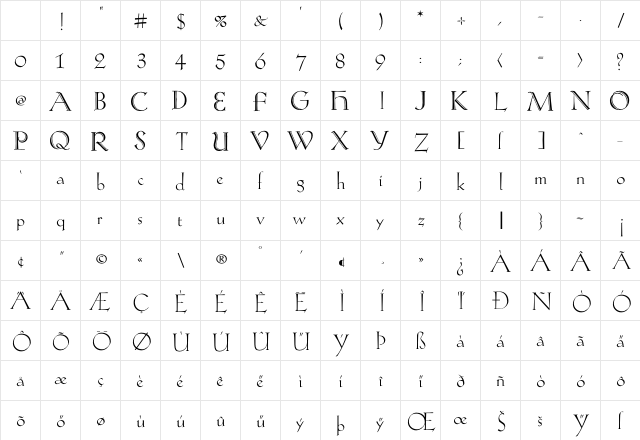
Complete Koch-Antiqua Zier Regular glyph index. Displaying only characters natively supported by Koch-Antiqua Zier Regular font.
Koch-Antiqua Zier is a composed and adaptable typeface that performs quietly and consistently across a wide range of design contexts.
Pro Tip: Use Koch-Antiqua Zier in both headline and body roles to test its range before committing to a single application.